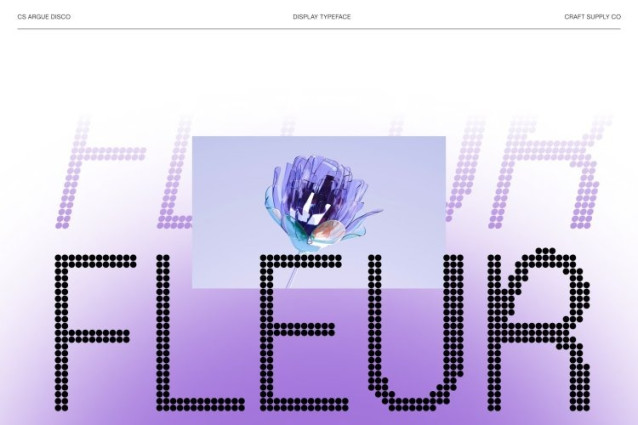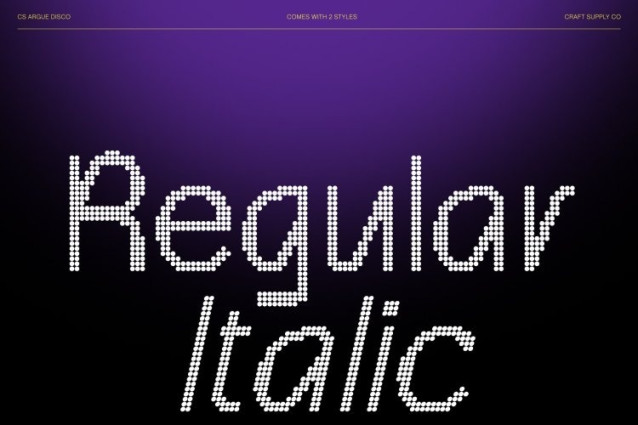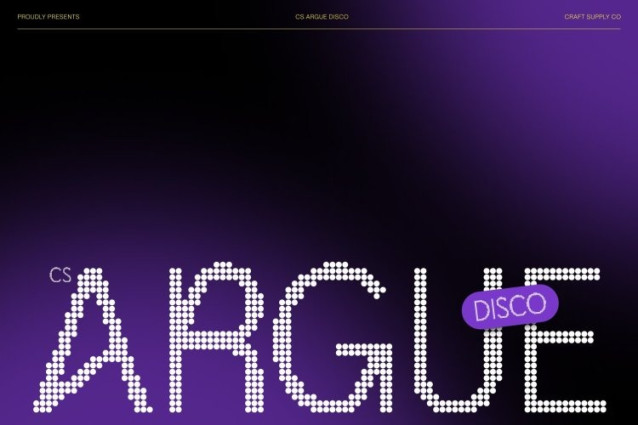
CS Argue Disco Font This is a modern sans serif font built on clean, contemporary structure and enhanced with playful, experimental details and a subtle disco-inspired rhythm. Unexpected proportions and expressive touches give the typeface a distinctive personality fresh, confident, and visually engaging without losing clarity.
Quirky Details within a Clean Framework
What makes this font stand out is the balance between minimalism and character. Unique letter shapes, unconventional cuts, and thoughtful spacing introduce charm and individuality, while the clean construction ensures readability and polish. The added disco energy brings movement and vibrancy to every word.
Trendy Style for Modern Visual Culture
Capturing the spirit of current design trends, this font feels stylish, creative, and up to date. Its mix of simplicity and experimentation makes it perfect for expressive visual concepts that want to feel modern and relevant across both digital and print media.
Perfect for Branding and Contemporary Creative Projects
Ideal for branding, visual identities, editorials, posters, fashion labels, creative studios, and lifestyle campaigns, delivers a clean yet quirky voice with an energetic edge. It’s a versatile choice for designs that want to look modern, playful, and confidently different.